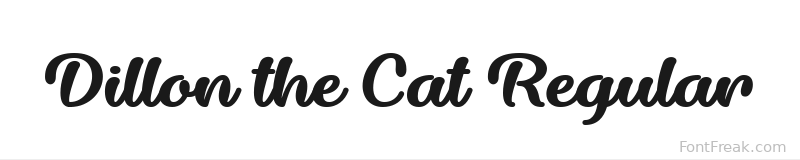
Dillon the Cat Regular
About Dillon the Cat Regular
Dillon the Cat Regular is a charming handwritten font designed by Misti Hammers, categorized as a script typeface. This font features a playful and whimsical aesthetic, characterized by its smooth, flowing strokes and a friendly demeanor. The stroke weight is moderate, providing a balanced appearance that is neither too bold nor too delicate. The gentle contrast between thick and thin lines adds a touch of elegance, while the spacious letterforms ensure readability in various contexts.
This versatile font is ideal for a range of creative applications. It shines in wedding invitations, where its romantic flair can beautifully convey heartfelt sentiments. Additionally, Dillon the Cat Regular is perfect for children's book covers, as its fun and approachable style captures the imagination of young readers. Restaurant menus can also benefit from this font, giving a warm and inviting feel that enhances the dining experience. Furthermore, it works wonderfully for social media graphics, allowing content creators to add a unique touch to their posts that stands out in crowded feeds.
What sets Dillon the Cat Regular apart is its delightful charm and versatility. It effortlessly blends playfulness with sophistication, making it a standout choice for various design needs. Whether you're crafting a whimsical invitation or an engaging promotional piece, this font adds character and warmth, ensuring your message resonates with your audience. For those interested in enhancing their projects, the Dillon the Cat Regular font free download is an opportunity not to be missed.